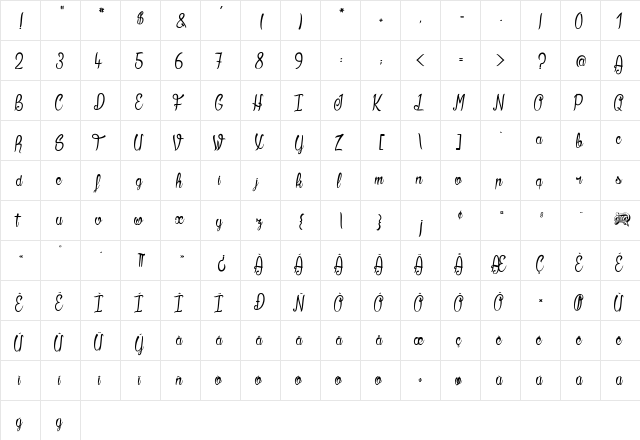
Kilowatts Regular
Design Context for Kilowatts Typeface
Kilowatts is a composed and adaptable typeface that performs quietly and consistently across a wide range of design contexts.
Pro Tip: Pair Kilowatts with a font of contrasting weight or personality to build a more expressive typographic hierarchy.